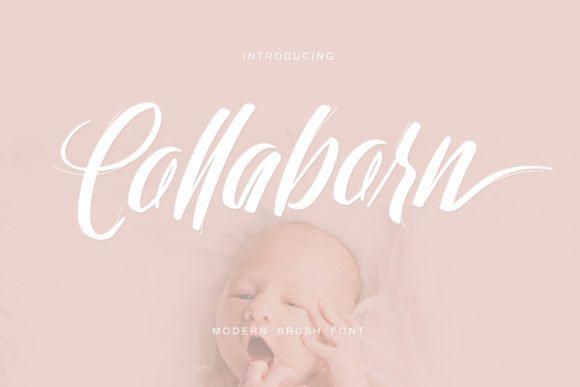
Unleash the Power of Handwritten Charm with Collaborn Script Font
Have you ever found yourself staring at a blank page, waiting for inspiration to strike? The creative process can be a daunting task, but sometimes all it takes is the right tool to spark your imagination. For designers, the perfect font can be the difference between a good design and a great one. That’s where the Collaborn Script Font comes in – a beautiful, elegant script font that adds a touch of handmade charm to any design project.
With its unique, flowing style, the Collaborn Script Font is a valuable addition to any designer’s toolkit. Whether you’re working on a branding project, a wedding invitation, or a social media campaign, this font is sure to elevate your design to the next level. Its versatility and sophistication make it a go-to choice for designers looking to create truly standout projects.
Collaborn Script Font Key Features
- Unique Characteristics: Features a distinctive script style with elegant connections between letters, creating a beautiful and flowing appearance.
- Font Weight: Offers a range of font weights, from Light to Bold, allowing designers to customize the font’s appearance to suit their needs.
Designer Review: Collaborn Script Font
As a designer, I was excited to dive into the Collaborn Script Font and see what it had to offer. Overall, I think it’s a solid addition to any designer’s toolkit. ✨ Here are some of the things that really stood out to me:
- Unique Character**: The Collaborn Script Font has a distinct, hand-written feel that’s perfect for adding a touch of personality to your designs.
- Customizable**: The font is highly customizable, with a wide range of font sizes, styles, and colors to choose from.
- Legibility**: Despite its scripty appearance, the font is surprisingly easy to read, even at smaller sizes.
Of course, no font is perfect, and the Collaborn Script Font has some limitations. ⚠️ Here are a few things to keep in mind:
- Limited Support**: The font may not be fully supported in all applications or browsers, which could lead to compatibility issues.
- May Require Adjustments**: Depending on the design, you may need to make some adjustments to the font’s size, spacing, or style to get the desired look.
Overall, I think the Collaborn Script Font is a great choice for designers who want to add a touch of personality to their designs. While it’s not without its limitations, I think the benefits far outweigh the drawbacks.
Tips for Getting the Most Out of Collaborn Script Font
For the best results, use Collaborn Script Font in combination with other elegant fonts and bold typography.
Collaborn Script Font is perfect for:
- Handwritten-style typography.
Alternatives to Collaborn Script Font
Carolyna Pro is a modern script font that combines elegance and sophistication. It is perfect for designs that require a touch of luxury and refinement. When to use: High-end branding, luxury products, and wedding invitations. Comparison: Carolyna Pro has a more refined and polished look compared to Collaborn Script Font, making it suitable for high-end designs.
Great Vibes is a beautiful script font that exudes a sense of playfulness and creativity. It is ideal for designs that require a touch of whimsy and fun. When to use: Social media graphics, advertisements, and entertainment-related projects. Comparison: Great Vibes has a more casual and approachable look compared to Collaborn Script Font, making it suitable for designs that require a relaxed tone.
Litera Script
Litera Script is a elegant script font that is perfect for designs that require a touch of sophistication and elegance. It is ideal for designs that need to convey a sense of refinement and luxury. When to use: Corporate branding, business cards, and formal invitations. Comparison: Litera Script has a more classic and timeless look compared to Collaborn Script Font, making it suitable for designs that require a sense of tradition.